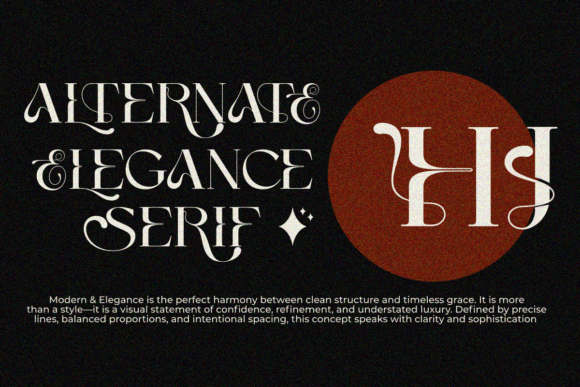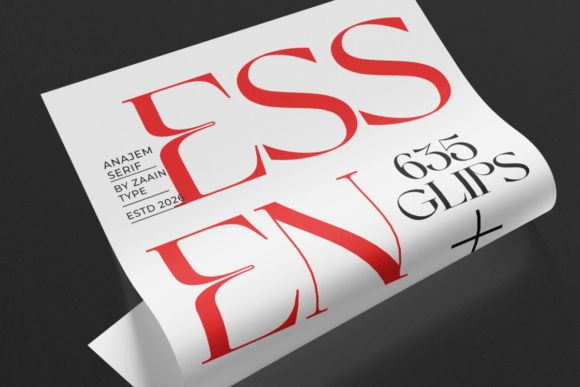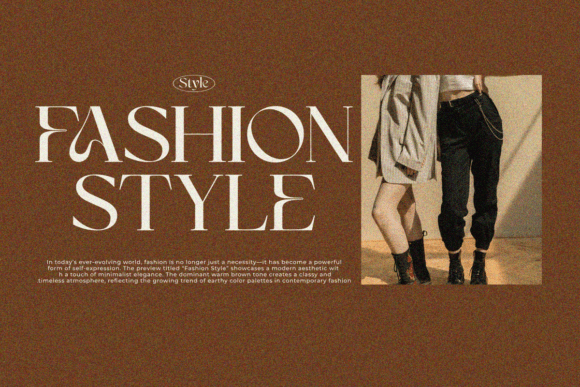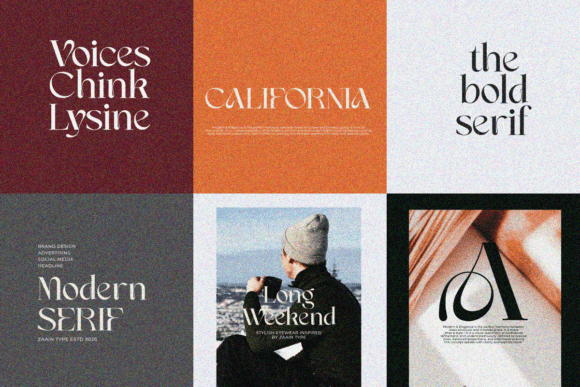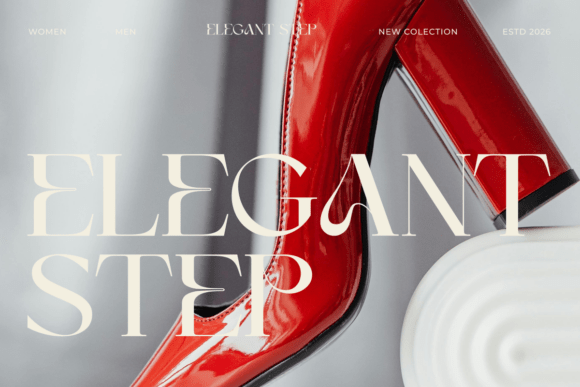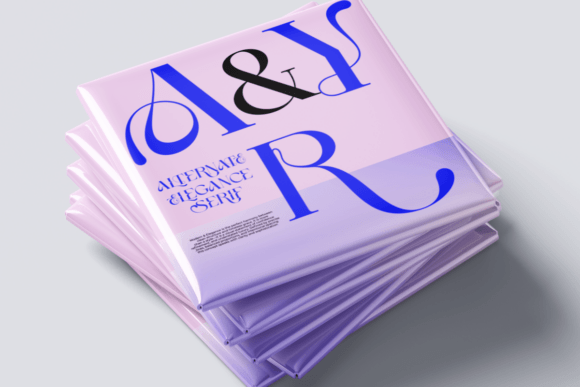
Introducing Anajem Serif Font: A Timeless Typeface for the Modern Era
In the world of typography, a well-crafted serif font can elevate any design project, conveying sophistication, elegance, and a sense of tradition. Anajem Serif Font is a masterfully designed typeface that seamlessly blends classic charm with a subtle modern twist, making it an ideal choice for designers and crafters seeking a refined and versatile font for their creative endeavors.
The Art of Elegance: Anajem Serif’s Design Philosophy
Anajem Serif is built on the principles of balanced proportions, gentle stroke contrast, and refined yet distinctive serifs. This harmonious combination results in a font that exudes a professional, warm, and highly readable appearance, suitable for a wide range of applications, from editorial projects such as books and magazines to branding initiatives that demand a sophisticated and timeless aesthetic.
Clean Letterforms and Smooth Visual Rhythm
One of the standout features of Anajem Serif is its clean letterforms, which contribute to a smooth visual rhythm that guides the reader’s eye effortlessly through the text. This attention to detail ensures that the font remains highly legible, even at smaller sizes, making it perfect for lengthy editorial pieces or body text in branding materials.
Classic Nuance Meets Modern Refinement
Anajem Serif’s design strikes a delicate balance between classic nuance and modern refinement. The font’s classic undertones evoke a sense of trust and credibility, essential qualities for any brand or publication seeking to establish a strong reputation. Meanwhile, its modern refinement ensures that the font remains relevant and fresh, adapting seamlessly to both print and digital media.
Ideal for Editorial and Branding Projects
Anajem Serif’s versatility makes it an excellent choice for a variety of design applications. For editorial projects, such as books, magazines, and newspapers, the font’s high readability and classic elegance make it an excellent choice for body text. In branding, Anajem Serif can be used to convey a sense of sophistication and luxury, making it suitable for high-end brands, financial institutions, and professional services.
Key Features of Anajem Serif Font
• Balanced proportions: Ensuring a harmonious and visually appealing appearance.
• Gentle stroke contrast: Adding depth and character to the font.
• Refined yet distinctive serifs: Providing a touch of elegance and sophistication.
• Clean letterforms: Enhancing readability and visual flow.
• Smooth visual rhythm: Guiding the reader’s eye through the text.
Why Choose Anajem Serif Font?
Anajem Serif Font offers a unique combination of classic elegance and modern refinement, making it an excellent choice for designers and crafters seeking a versatile and sophisticated typeface. With its high readability, clean design, and adaptable nature, Anajem Serif is poised to become a go-to font for editorial and branding projects that demand a timeless and refined aesthetic.
In conclusion, Anajem Serif Font is a beautifully crafted typeface that embodies the perfect blend of classic charm and modern sophistication. Its elegant design, balanced proportions, and refined features make it an ideal choice for designers and crafters seeking a font that can elevate their creative projects. Whether you’re working on an editorial piece or a branding initiative, Anajem Serif is sure to deliver a professional, warm, and highly readable appearance that will leave a lasting impression.